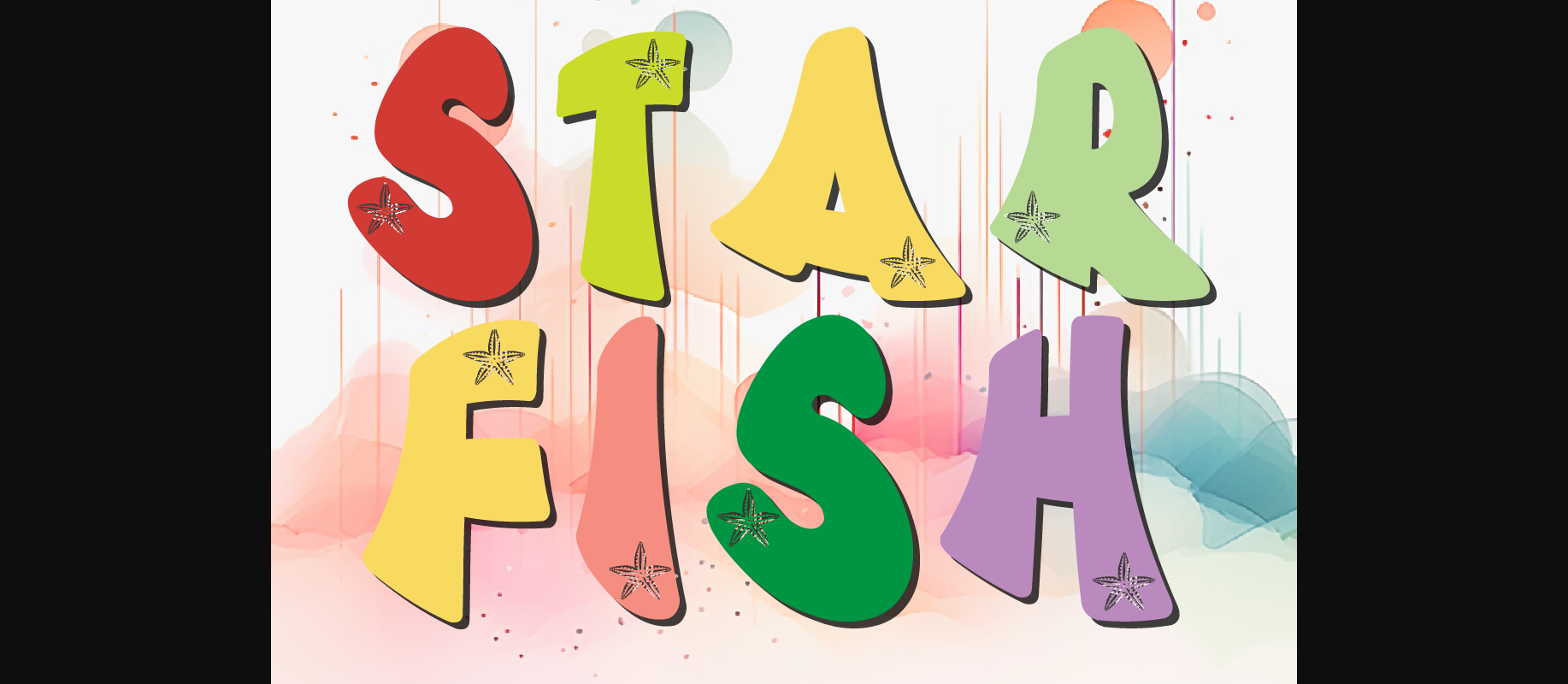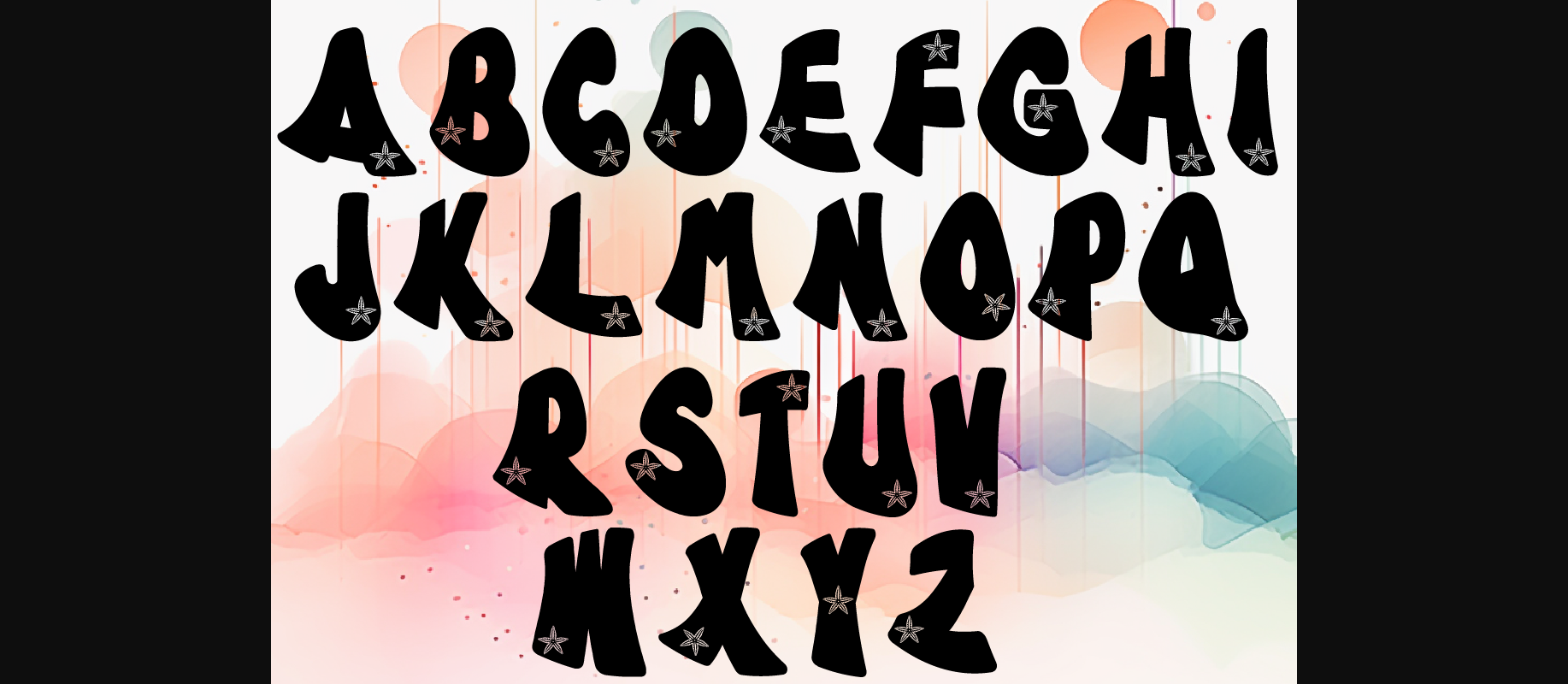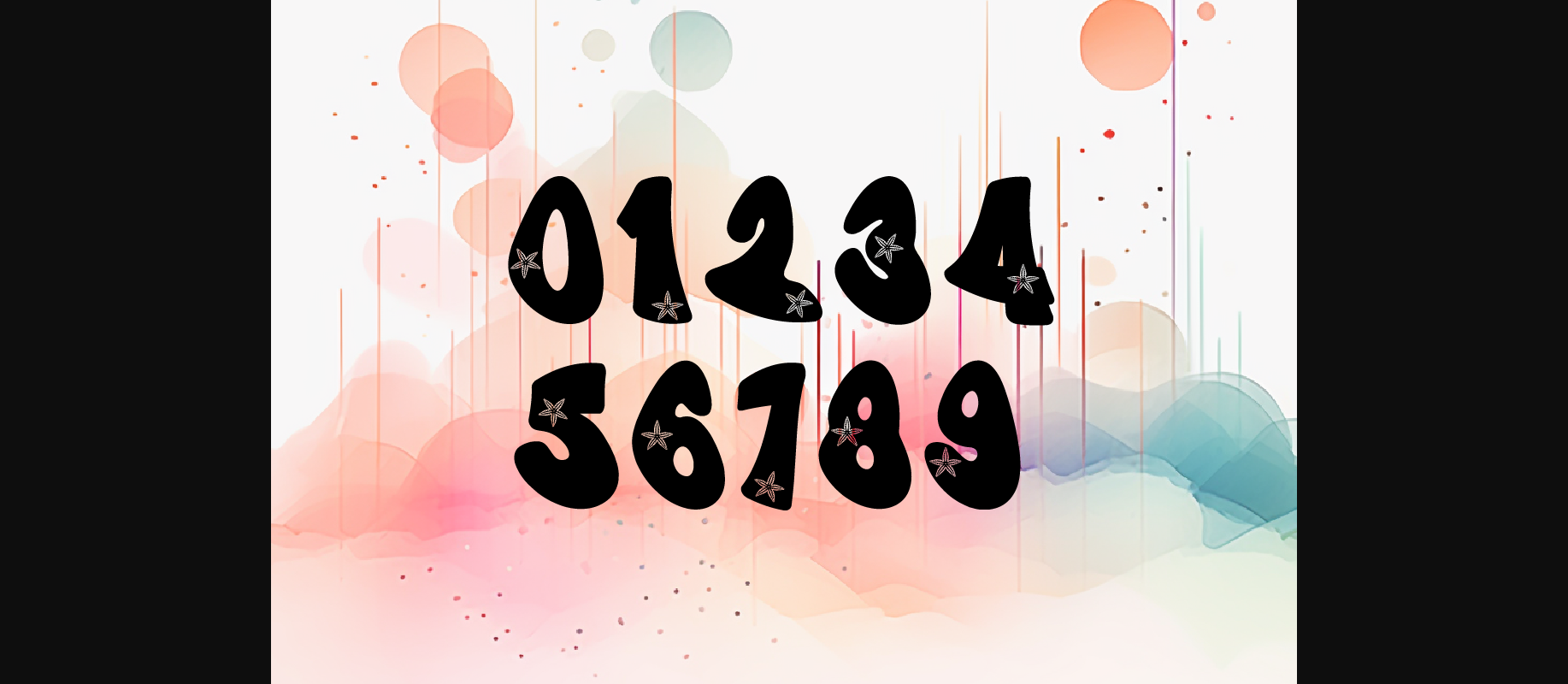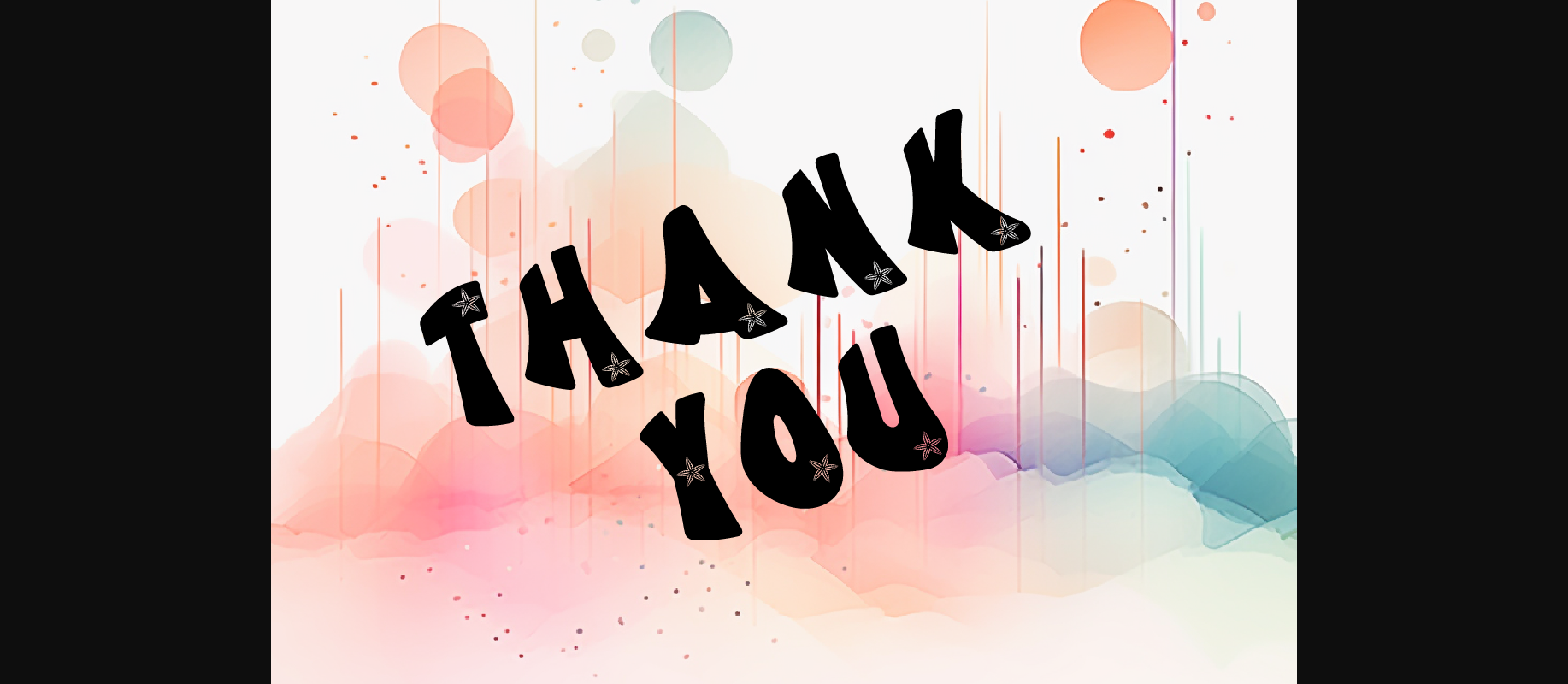
Starfish Glee Glimpse Font
About Starfish Glee Glimpse Font
Introducing Starfish Glee Glimpse, a delightful decorative font that infuses the charm of starfish into every letter. With 26 capital letters and 10 numbers from 0-9, this font collection offers versatility for various creative endeavors.
Whether you’re designing invitations, posters, branding materials, or digital artworks, this font adds a touch of whimsy and coastal allure. Each character captures the essence of the sea, making it perfect for projects related to marine themes, beach vibes, or underwater adventures.